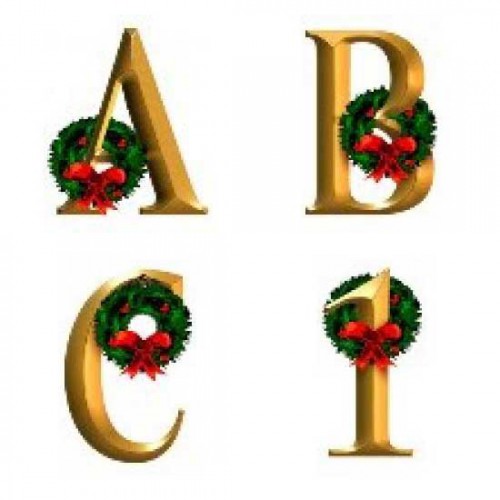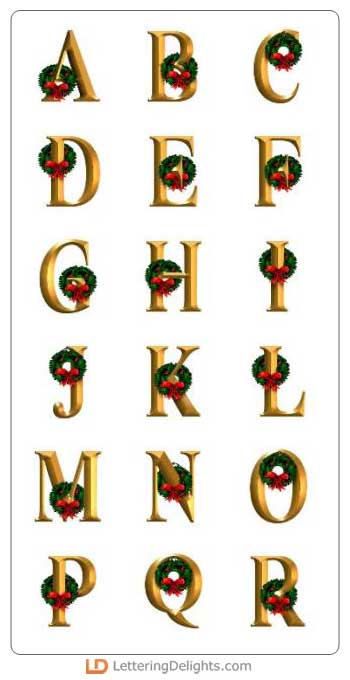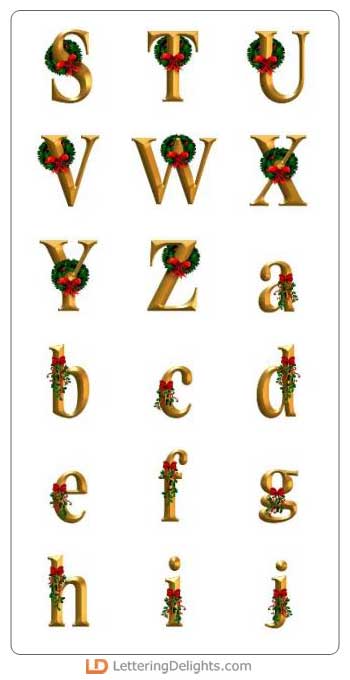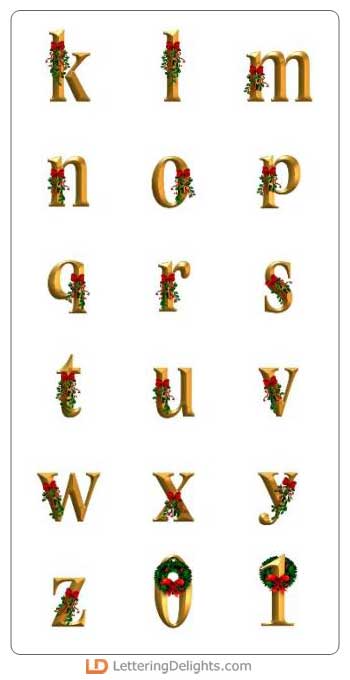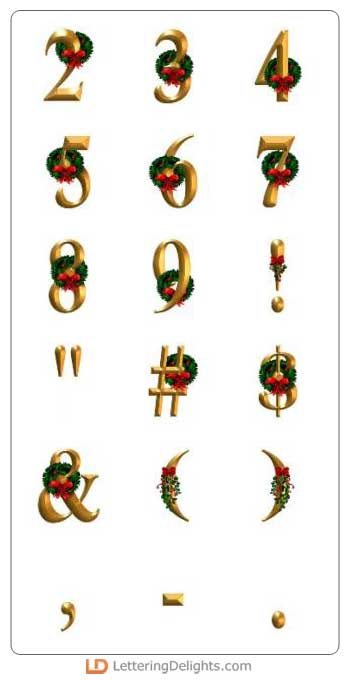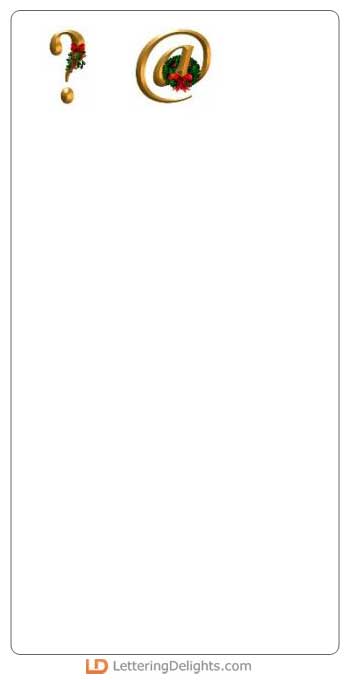
A Christmas wreath adorns beautiful golden letters in this festive and gorgeous holiday alphabet. Try it on your more formal scrapbook pages, invitiations, programs, announcements or flyers. Effortlessly create distinctive stationery, place cards, name tags, and monogrammed note cards